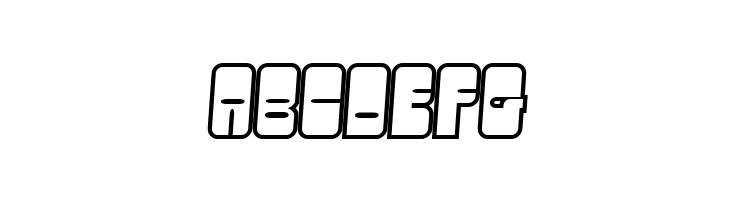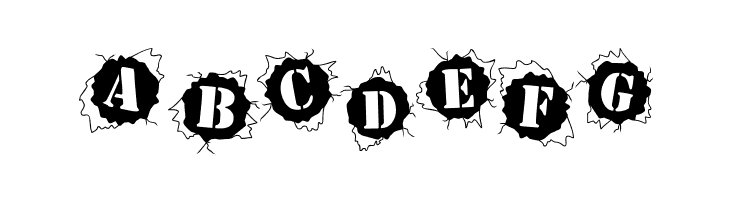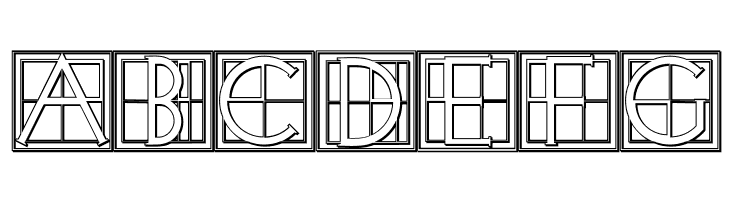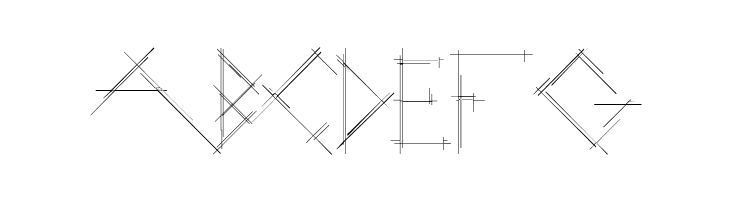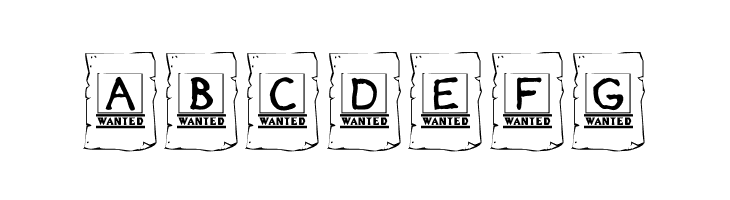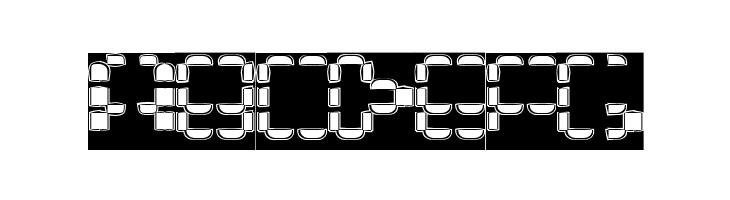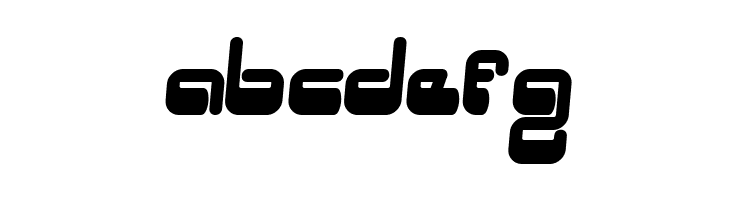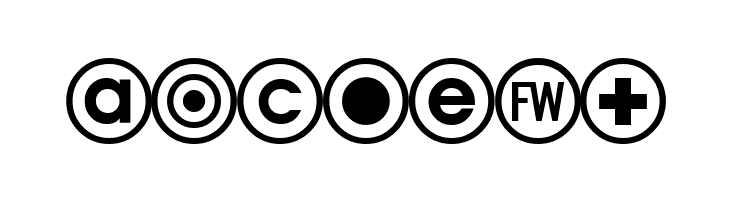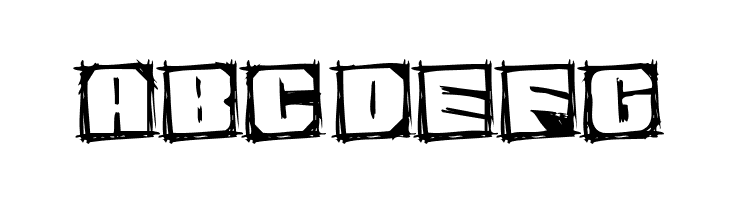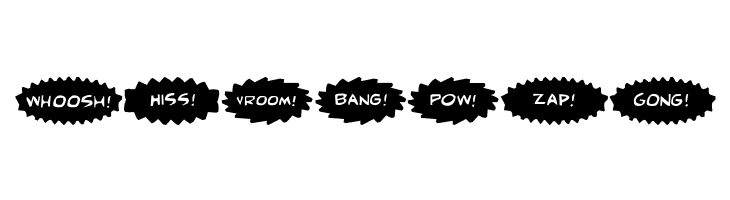
An ornate and decorative font with intricate patterns and a vintage flair.
A bold, playful font with rounded edges and a cartoonish style.
A bold, bullet hole-themed font with high contrast and dramatic impact.
A geometric, square-based decorative font with intricate line work.
A geometric, linear font with intersecting lines and boxed numerals.
A futuristic, pixelated font with a tech-inspired, geometric design.
An ornate, Art Nouveau-inspired decorative font with intricate designs.
A bold, rounded font with a futuristic and playful style.
A playful, circular font with bold, decorative characters and symbols.
A bold, 3D block font with hexagonal shapes and outlined numerals.
A bold, decorative font with characters in spiky star shapes, offering high contrast and visual impact.
A bold, hexagon-framed font with a futuristic and industrial style.
A bold, grunge-style font with a sketchy, graffiti-inspired look.
A decorative, abstract font with geometric and tribal-inspired designs.
A playful, balloon-themed font perfect for festive and joyful designs.
An ornate decorative font with floral designs in uppercase letters.